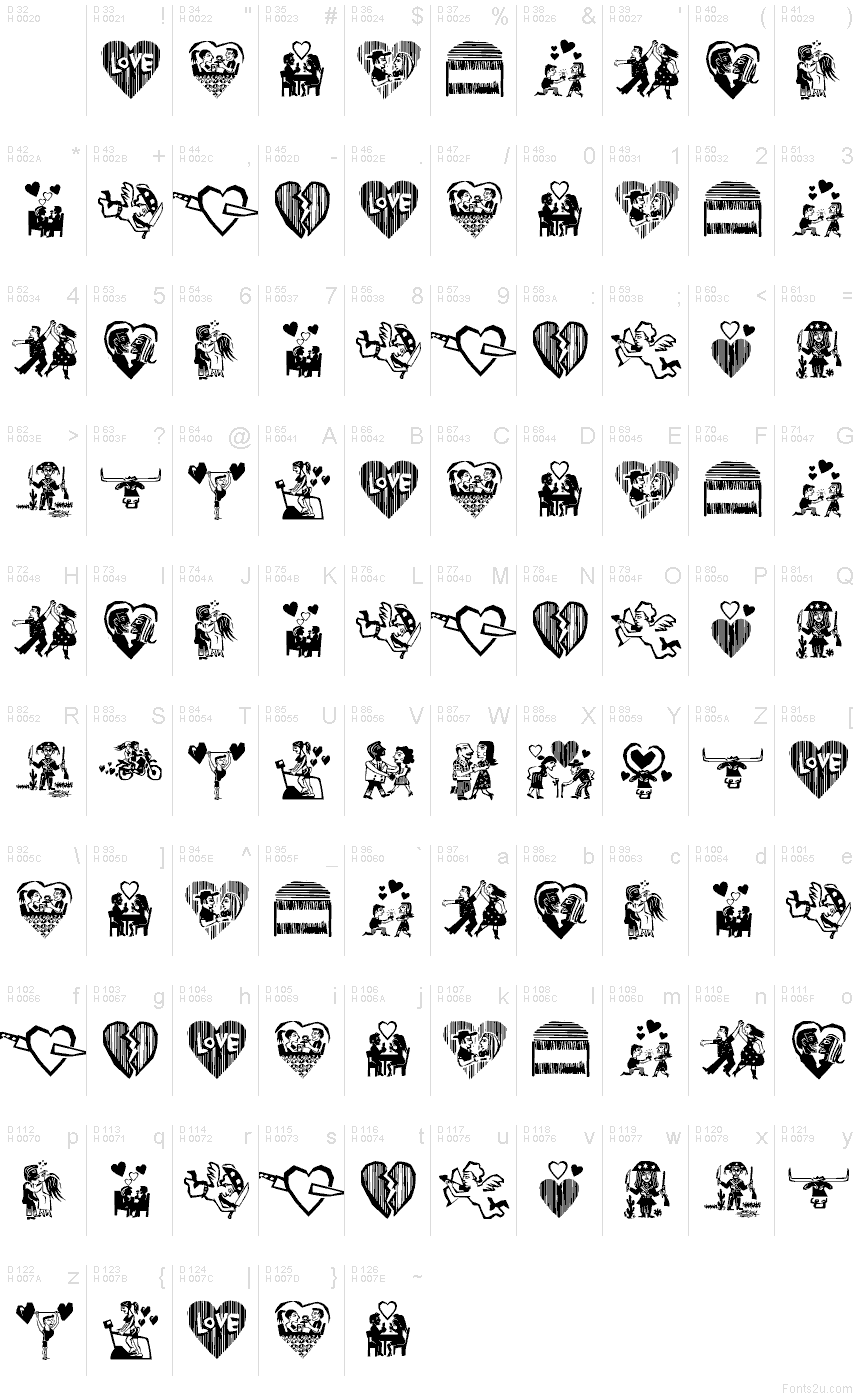
Cordel Valentine Regular
Cordel Valentine font was designed by Galdino Otten Fonts to embody romantic themes in visually engaging dingbats. It is made of expressive and contrasting elements that will all together grab the attention of viewers. This abstract free dingbats typeface is perfect for use in both digital and print designs.
Use it inside your invitation cards, packaging design, posters, apparel prints, digital ad posters on different social media platforms, magazine covers or even on TV commercial videos. Its full effects can be unleashed by graphic designers and artists working with visual content.
Cordel Valentine